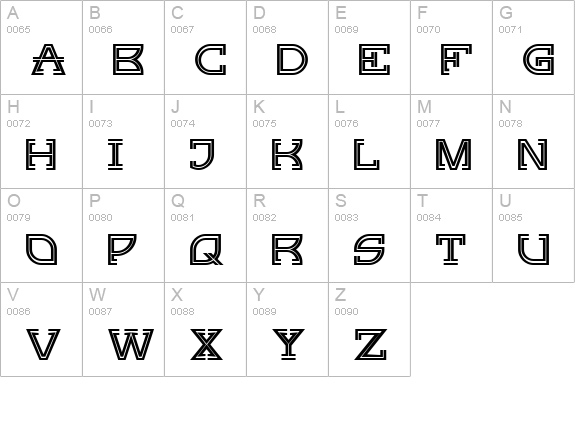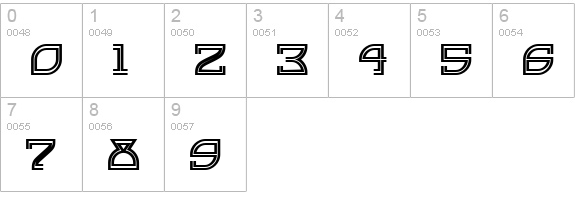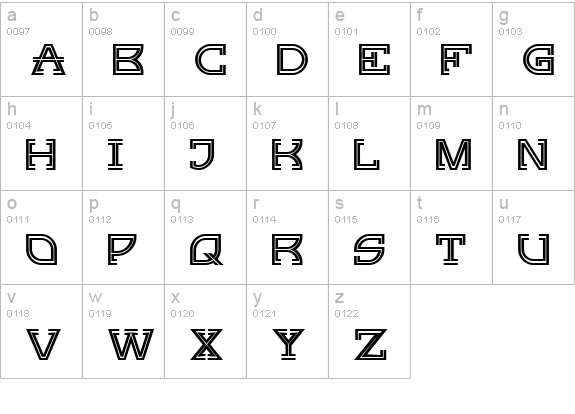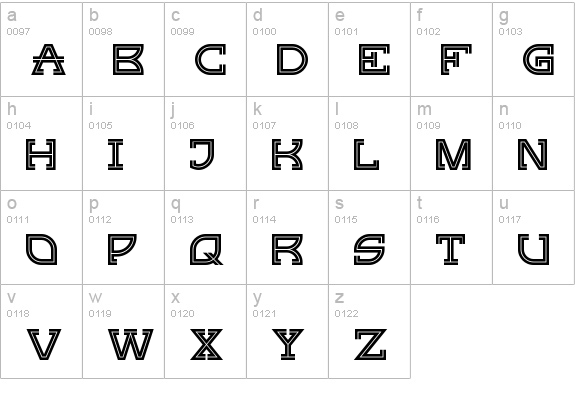
Ginger Peachy NF is a charming and elegant font that exudes warmth and sophistication. With its delicate curves and graceful lines, this font is perfect for adding a touch of class to any design project. The combination of the playful ginger-inspired elements and the sweet peachy tones create a unique and eye-catching look that will surely stand out. And the best part? Ginger Peachy NF is completely free to download at FontsMarket.com! Whether you're working on a personal project or a professional design, this font is a fantastic choice that won't break the bank. So why wait? Download Ginger Peachy NF today and add a touch of elegance to your next creative endeavor.